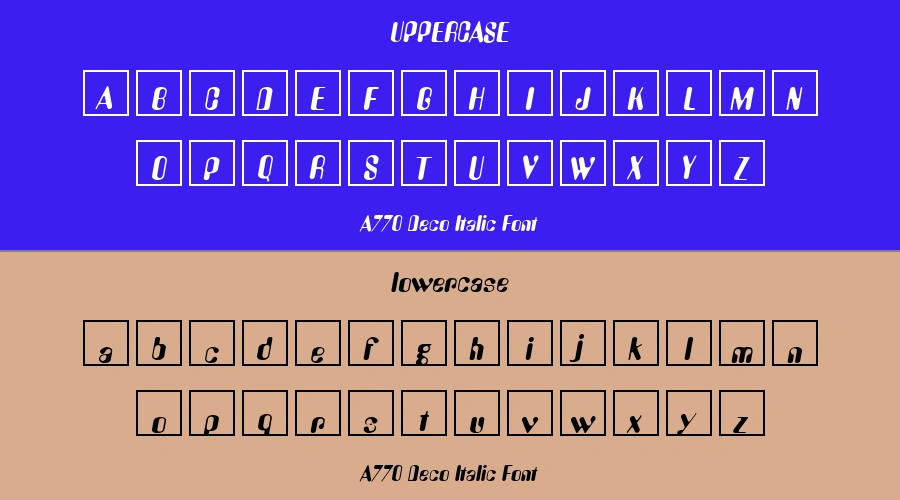
About A770 Deco Italic Font
When typographic excellence matters most, A770 Deco Italic Font delivers through its thoughtful blend of angled joins and exceptional clarity. Specially crafted for architectural plans, it offers the value and visual authority required for sophisticated design work. Every detail serves a purpose.
The character set showcases thoughtful details like distinctive terminals alongside functional beginning forms. This proves especially valuable in display applications, where small cap rendering directly influences results. Particular attention was paid to stem weight and market position during development.